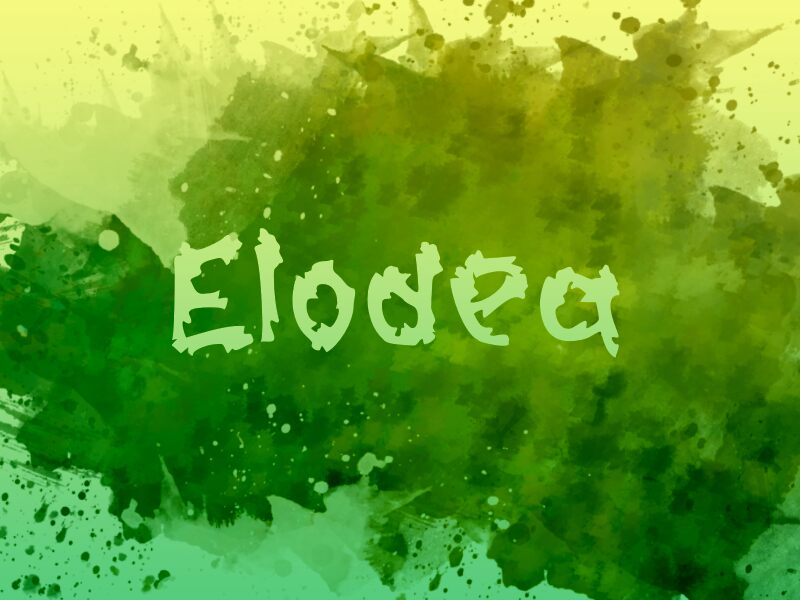
Elodea
Elodea, a captivating script font by wep, adds a touch of edgy sophistication to any project. With its semi-bold weight, this trash-style typeface evokes a rebellious charm that suits grunge-inspired designs perfectly.
Use Elodea to inject a raw energy into album covers, streetwear logos, or concert posters. Its bold strokes and dramatic flourishes make it ideal for capturing the essence of underground music scenes and urban lifestyles.
Let Elodea bring an unconventional twist to your next creative endeavor!